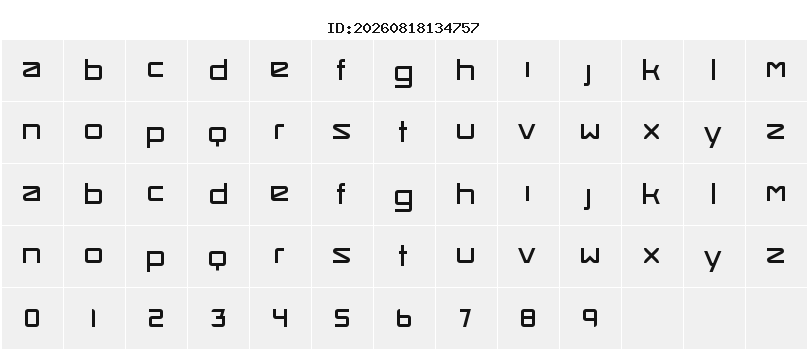
• Font Name: Smash Hit
• Designer: Henrik K Johansson
About Smash Hit.ttf
Smash Hit.ttf is a modern, elegant sans-serif font designed for ultimate readability and visual harmony. Perfect for branding, headlines, web design, and print materials.